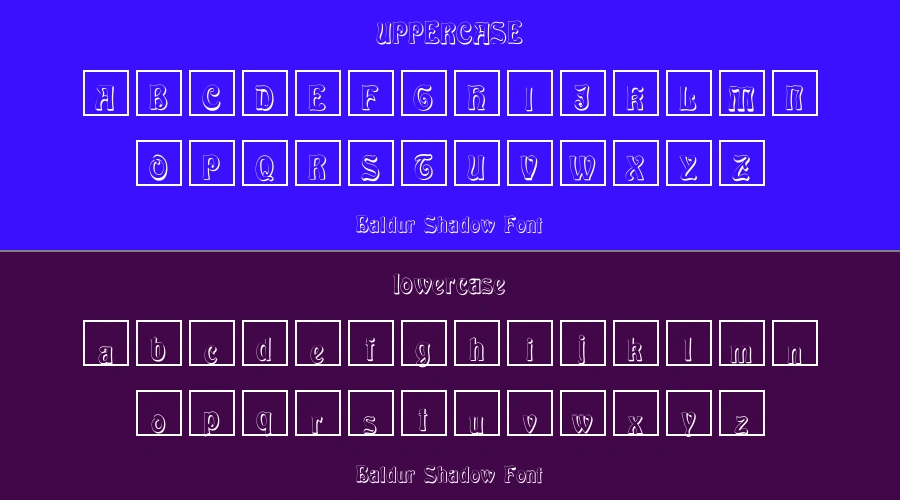
About Baldur Shadow Font
Baldur Shadow Font stands out for its distinctive combination of concave curves and reliability. Ideal for wine labels, it provides the flexibility and technical mastery that professional projects demand. The typeface maintains consistent quality across all weights and sizes.
Key features include refined dramatic swashes and practical case-sensitive forms, enhancing typographic expression. In campaign headers applications, Baldur Shadow Font demonstrates exceptional body text reading. The apex design and contemporary relevance contribute to its distinctive character and professional appeal.